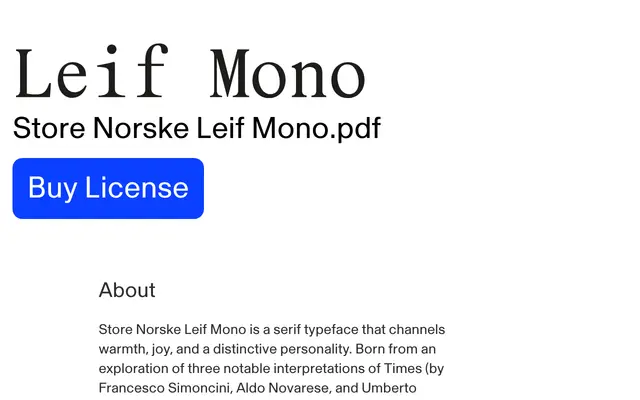
Store Norske Leif Mono
A monospaced serif companion to Store Norske Leif, carrying the warmth and playful character of its parent family into technical and editorial contexts.
Designed by Arve Båtevik, Leif Mono inherits the expressive personality of Store Norske Leif, itself informed by three notable interpretations of Times by Francesco Simoncini, Aldo Novarese and Umberto Fenocchio. Where Times is typically read as cold and functional, Leif Mono brings a sense of warmth and character to the fixed-pitch format. It covers an extensive Latin character set with support for Nordic and Sami languages, and includes a range of OpenType features including oldstyle figures, fractions, stylistic alternates and localised forms.
A monospaced serif typeface derived from the Leif family, which itself draws on Times interpretations by Simoncini, Novarese and Fenocchio. The monospaced format and serif construction place it clearly in the serif mono subcategory.